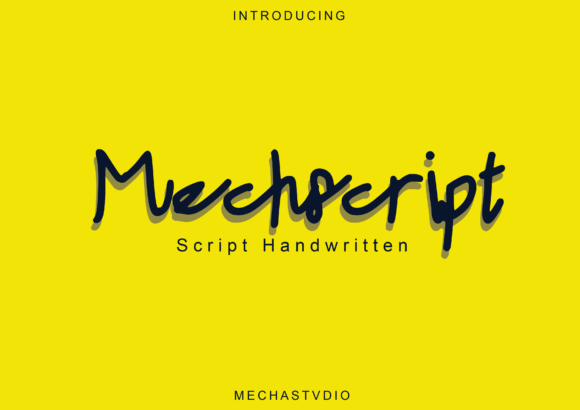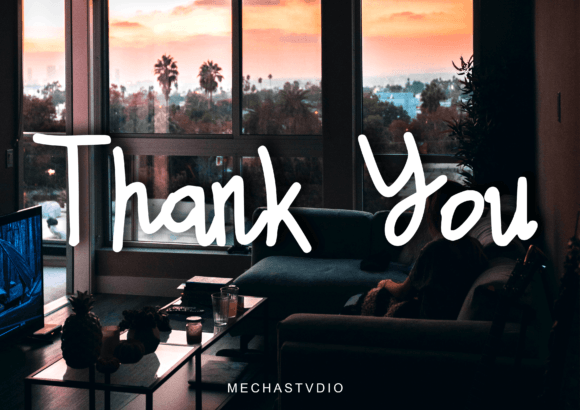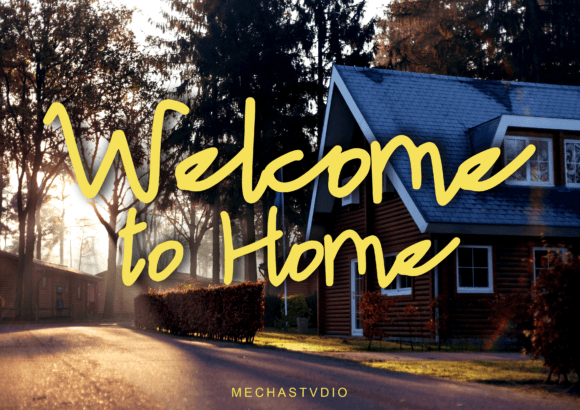
Mechscript Font
About Mechscript Font
“Mechscript: Where Simplicity Meets Handwritten Charm in Typography
Introducing Mechscript, a simple and light handwritten font designed to infuse your design projects with a unique feel and a stunning impact. With its effortless simplicity and handwritten charm, Mechscript adds a natural spark to any creative endeavor, making it the perfect choice for a wide range of applications. Whether you’re working on logos, branding projects, quotes, posters, social media graphics, invitations, or any design project that demands a touch of simplicity and handwritten allure, Mechscript effortlessly elevates your creations to new heights of creativity and style.
The beauty of Mechscript lies in its understated simplicity and effortless charm, where each letter is carefully crafted to exude a sense of authenticity and natural warmth. Its clean strokes and unpretentious detailing create a visual appeal that captures the essence of handwritten charm with a touch of genuine simplicity. Imagine your logos adorned with Mechscript’s straightforward, flowing letterforms, radiating with authenticity and approachability. Picture your quotes featuring its unadorned handwritten flair, instantly creating a sense of connection and sincerity. With Mechscript, your designs emanate with a natural elegance, making them visually appealing and emotionally resonant.
One of Mechscript’s standout features is its versatility. Its simplicity and handwritten charm make it suitable for a wide array of design applications, from digital platforms to printed materials. Whether you’re designing social media graphics or crafting invitations for special events, Mechscript enhances your creations with its effortless appeal, making them stand out with a unique blend of simplicity and authentic charm.
Moreover, Mechscript is more than just a font; it’s an embodiment of genuine creativity and approachable elegance. Its simplicity and handwritten allure resonate with individuals who appreciate the beauty of authentic expression, making it a favorite among designers and enthusiasts seeking a font that exudes simplicity and heartfelt charm. Mechscript becomes a symbol of your creativity, allowing you to create designs that not only catch the eye but also touch the heart with a touch of natural warmth.
In a world where simplicity meets handwritten charm, Mechscript helps you make a statement. It speaks the language of genuine creativity and heartfelt expression, resonating with those who appreciate the beauty of authenticity and simplicity. Whether you’re designing for digital platforms, branding, or special events, Mechscript becomes your trusted companion, guiding you toward design excellence.
So, why settle for ordinary when you can embrace the extraordinary with Mechscript? Let this simple and light handwritten font be the canvas for your creative expressions, and watch as your projects come to life with genuine simplicity, heartfelt charm, and approachable elegance. Let your creativity flow, and let Mechscript be the brushstroke that paints your ideas into visually captivating masterpieces, leaving a lasting impression on the hearts of your audience. Elevate your designs with Mechscript, where simplicity meets handwritten charm, and transform your creations into works of art that resonate with the authentic spirit of genuine creativity.”